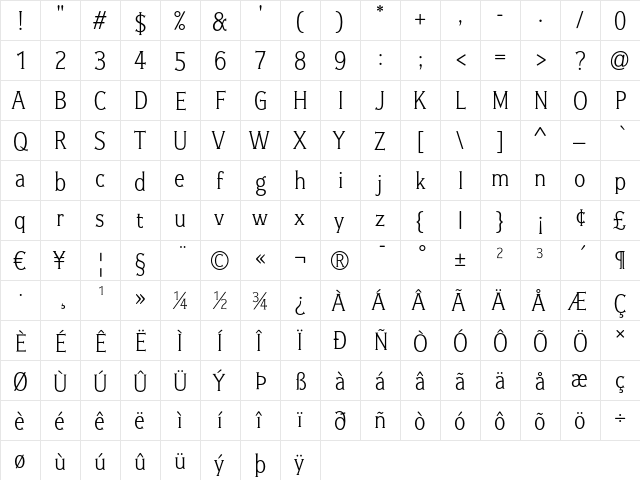
Ideal Gothic Regular
Design Context for Ideal Gothic Typeface
Ideal Gothic takes a clean, functional approach — its unadorned letterforms prioritise legibility and work reliably across screen and print environments.
Font Pairing: Works well alongside a characterful serif or display font that can carry the expressive load while Ideal Gothic handles the functional copy.
Pro Tip: Pair Ideal Gothic with a display or serif font for headlines — its neutral character makes it an excellent supporting player in complex typographic systems.